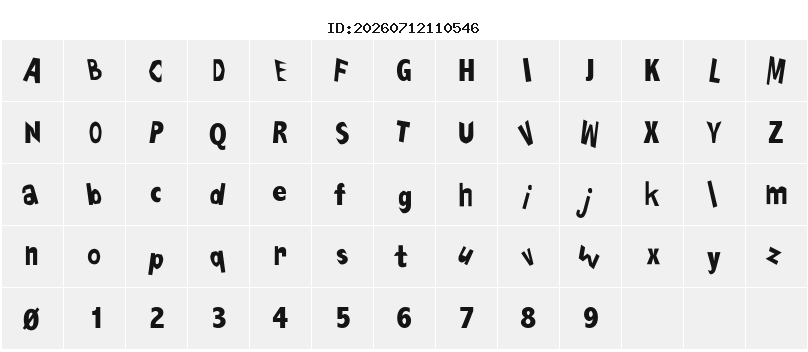
Malkavian Font Preview
• Font Name: Malkavian Font
• Full Font Name: Abadi MT Condensed Extra Bold
About Malkavian Font.ttf
Malkavian Font.ttf is a modern, elegant sans-serif font designed for ultimate readability and visual harmony. Perfect for branding, headlines, web design, and print materials.